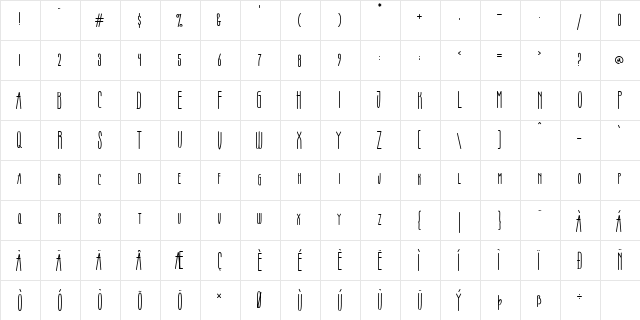
Sophier Letties CAPITALE Regular
| Foundry | Cotbada Studio |
| Designer | Cotbada Studio |
Design Context for Sophier Letties CAPITALE Typeface
Sophier Letties CAPITALE takes a measured approach to typography — its balanced proportions and neutral character make it a reliable workhorse for both digital and print work.